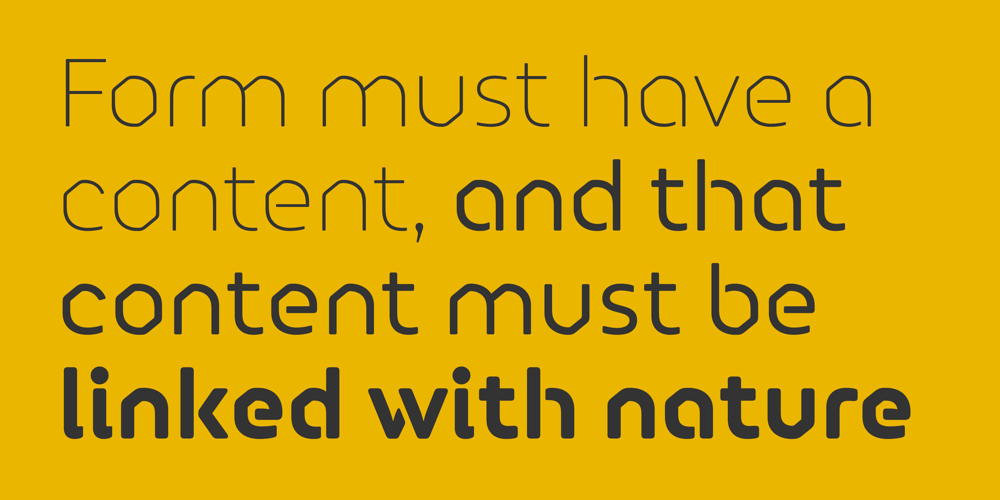
FS Alvar
FS Alvar font
FS Alvar Font Family was designed by Jason Smith, Phil Garnham and published by Fontsmith. FS Alvar contains 3 styles and family package options. The classic modernistFS Alvar grew out of a library of pure modular shapes gathered by Fontsmith’s master of the abstract starting point, Mr Phil Garnham. “It was a collection that just had to be explored and brought to life in a typographic voice. “We debated long and hard about this. It was big decision to make a shift away from the typefaces that people knew us for. And we didn’t want to compromise our reputation of well crafted typographic quality”.Modular formsA headline font that’s both graphic and functional, in the modernist tradition, FS Alvar focused Fontsmith’s eyes on the bigger issue of what makes a font show its age. “Looking at those fonts from the 1980s that were supposed to represent the ‘future’,” says Phil, “they looked so dated now. With Alvar, we weren’t concerned with creating future-thinking typography but with exploring form for form’s sake, and how that can evolve to create letterforms. Modular forms with a typographic eye.”StencilledThe concept for Alvar first materialised back in 2001 with some sketches Phil made while still at Middlesex University. Eight years later, something made him dig them out again. “There was something really nice about the proportions of that first design. Working on it again, I thought about it properly, but it still needed something to give it that edge. “Jason stood up in the studio and supplied the missing link: ‘Why don’t we make it stencilled?’ He didn’t mean in an obvious way, but by building a kind of architectural stencil into the form. It worked and the idea of using an architect’s name (Alvar Aalto) to describe the font felt perfect.”Featured in…The three weights of FS Alvar are made for standout headlines in advertising campaigns and magazines. Alvar has had a starring role in campaigns for brands from Nike to Amnesty International, as well as on CD covers, record labels and packaging.